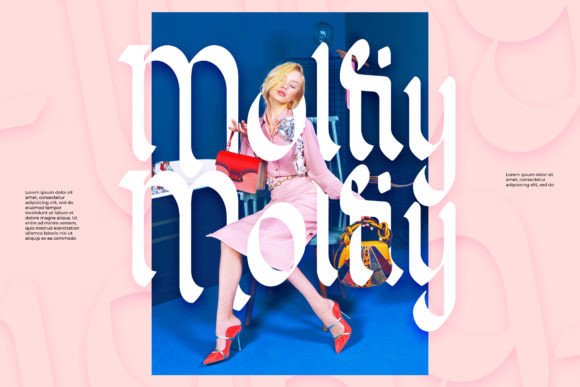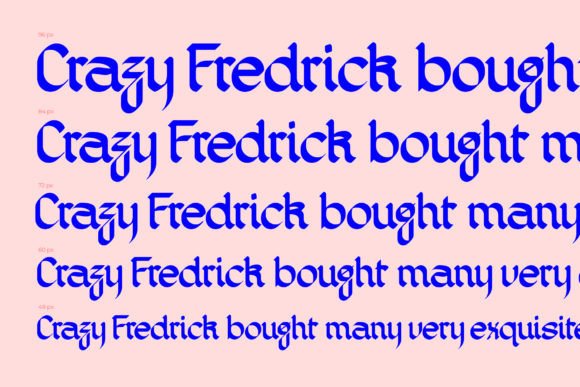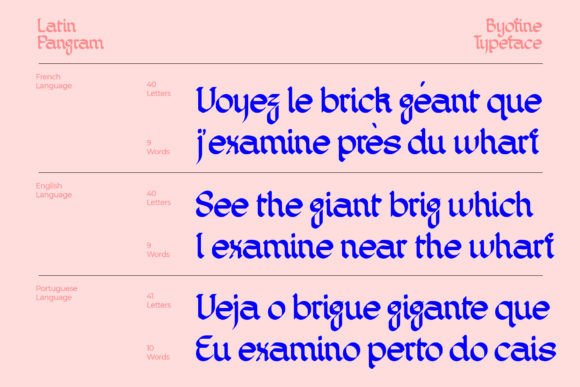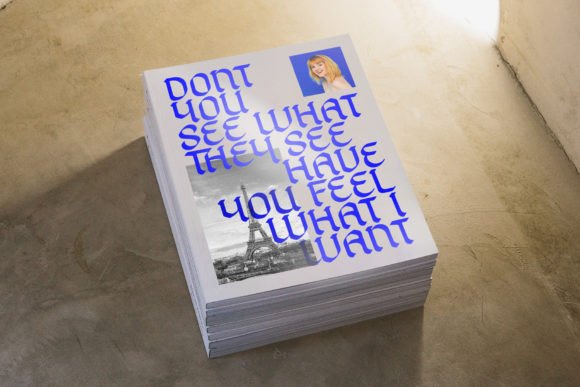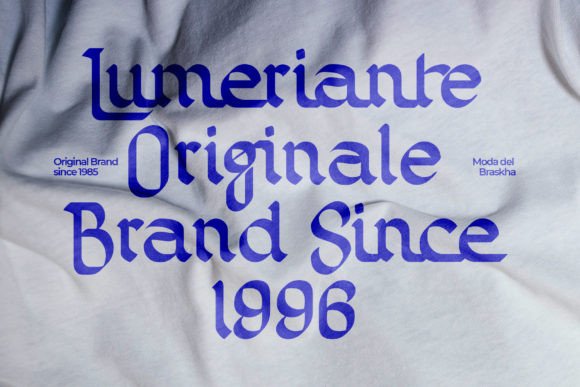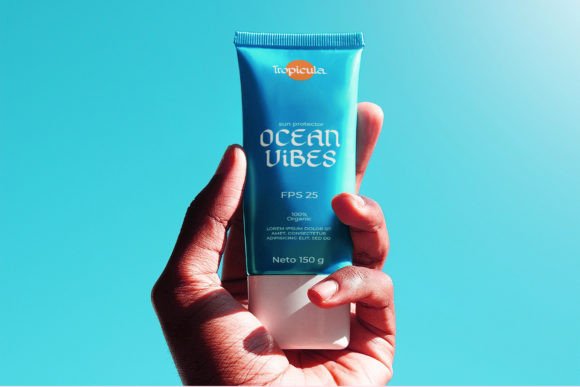
Introducing Byofine Font: Elevate Your Crafting Ideas with a Cool and Wavy Display Font
Are you a designer, crafter, or DIY enthusiast looking for a unique and versatile font to take your projects to the next level? Look no further than Byofine Font, a cool and wavy looking display font that’s perfect for a wide range of crafting ideas. In this article, we’ll dive into the features and benefits of Byofine Font, and explore how it can elevate your cards, branding, labels, and more.
What is Byofine Font?
Byofine Font is a modern display font that’s designed to add a touch of personality and whimsy to your projects. Its wavy and fluid lines give it a distinctive look that’s sure to grab attention. Whether you’re creating handmade cards, crafting custom branding materials, or designing labels and packaging, Byofine Font is the perfect choice.
Key Features of Byofine Font
- PUA Encoded: Byofine Font is PUA (Private Use Area) encoded, which means you can access all of the glyphs and swashes with ease. This makes it easy to use the font in your designs, even if you’re not a professional typographer.
- Wavy and Fluid Lines: The font’s wavy and fluid lines give it a unique and eye-catching look that’s perfect for adding a touch of personality to your projects.
- Highly Versatile: Byofine Font is suitable for a wide range of crafting ideas, from cards and invitations to branding, labels, and more.
How to Use Byofine Font in Your Projects
Byofine Font is incredibly versatile, and can be used in a wide range of projects. Here are a few ideas to get you started:
- Handmade Cards: Add a touch of personality to your handmade cards with Byofine Font. Use it to create custom titles, captions, and messages that will make your cards stand out.
- Branding and Packaging: Use Byofine Font to create custom branding materials, such as labels, packaging, and business cards. Its unique look is sure to help your brand stand out.
- DIY Crafts: Byofine Font is perfect for a wide range of DIY crafts, from scrapbooking to woodworking. Use it to add custom titles and captions to your projects.
Benefits of Using Byofine Font
So why choose Byofine Font for your projects? Here are just a few benefits of using this amazing font:
- Adds Personality: Byofine Font adds a touch of personality and whimsy to your projects, making them stand out from the crowd.
- Highly Versatile: The font is suitable for a wide range of projects, making it a great addition to your design library.
- PUA Encoded: The font’s PUA encoding makes it easy to access all of the glyphs and swashes, giving you maximum creative control.
Byofine Font is a cool and wavy looking display font that’s perfect for designers, crafters, and DIY enthusiasts. Its unique look and highly versatile design make it suitable for a wide range of projects, from handmade cards to branding and packaging. With its PUA encoding and easy-to-use design, Byofine Font is a great addition to any design library. So why wait? Download Byofine Font today and start elevating your crafting ideas to the next level!